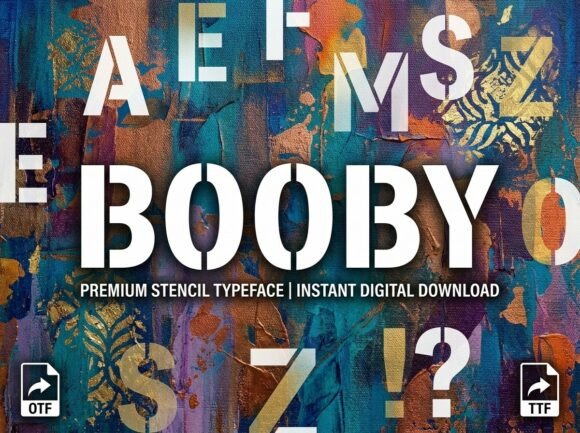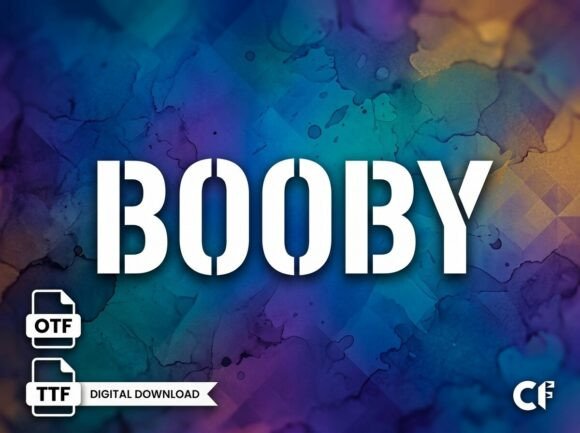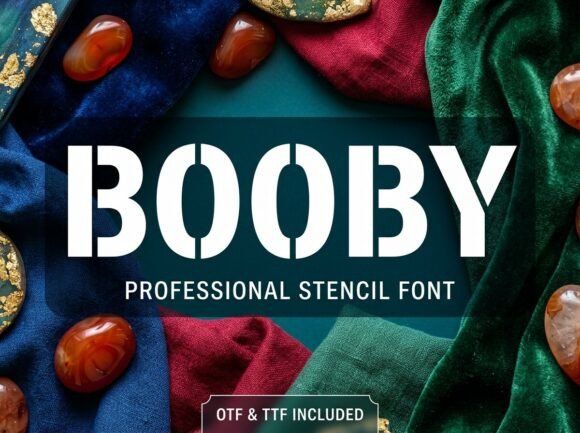
The Designer’s Dilemma: Finding the Perfect Font for Industrial-Chic Projects
I still remember the frustration of working on a project for a client’s construction company. The brief was clear: create a bold, eye-catching logo that exuded strength and reliability. But, as I scrolled through my font library, I found myself stuck. The usual suspects – Arial, Helvetica, and Times New Roman – just didn’t cut it. That’s when I stumbled upon Booby Font, a robust display typeface that would change the game for my design projects.
First Impressions: What I Love About Booby Font
Booby Font is more than just a pretty face – it’s a statement piece. Here are a few things that immediately won me over:
• ✨ Industrial-chic aesthetic: Booby’s thick, condensed sans-serif letterforms scream “industrial” and “utilitarian,” making it perfect for construction branding, tactical equipment logos, and artisanal workshop signage.
• ✅ Clean lines and geometric structure: The font’s rock-solid geometric structure and clean lines give it a professional, high-impact presence that’s hard to ignore.
• 💡 Rhythmic stencil gaps: The stencil gaps add a touch of visual interest, creating a sense of rhythm and flow that’s perfect for headlines and titles.
The Not-So-Perfect: A Few Quirks and Limitations
No font is perfect, and Booby Font is no exception. Here are a few things to keep in mind:
• 🤔 Limited use cases: While Booby Font is amazing for display text, it may not be the best choice for body text or smaller font sizes.
• ⚠️ Glyph limitations: Some users have reported that the font’s glyph set is limited, which may be a concern for projects requiring a wide range of special characters.
The Story Behind Booby Font
Booby Font was designed with the industrial-chic aesthetic in mind. Its creator, a type designer with a passion for construction and manufacturing, wanted to create a font that captured the strength and reliability of industrial design. The result is a font that’s both rugged and refined, perfect for projects that require a bold, eye-catching presence.
What is Booby Font best used for? Booby Font is ideal for display text, such as headlines, titles, and logos, particularly in industrial-chic designs.
Can I use Booby Font for body text? While Booby Font can be used for body text, it may not be the best choice due to its condensed letterforms and industrial-chic aesthetic.
Is Booby Font suitable for digital use? Yes, Booby Font is optimized for digital use and can be used in a variety of digital applications, including social media headers and website titles.